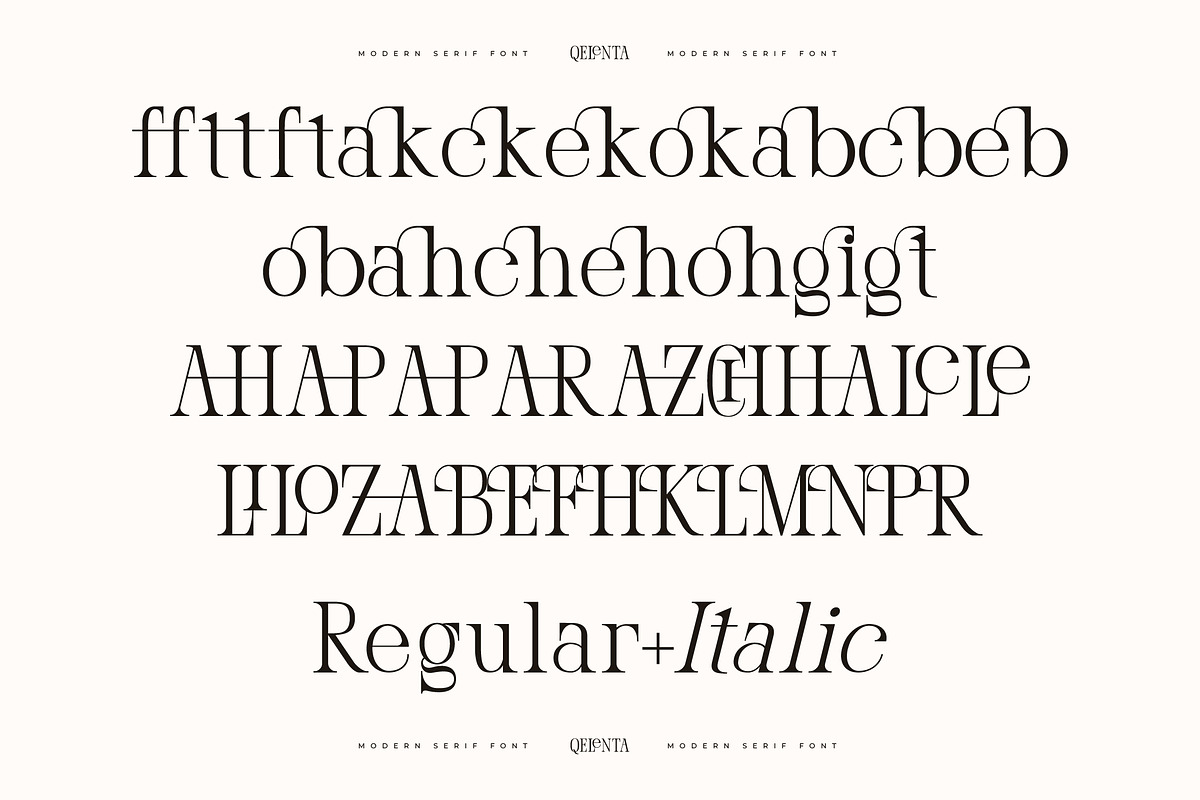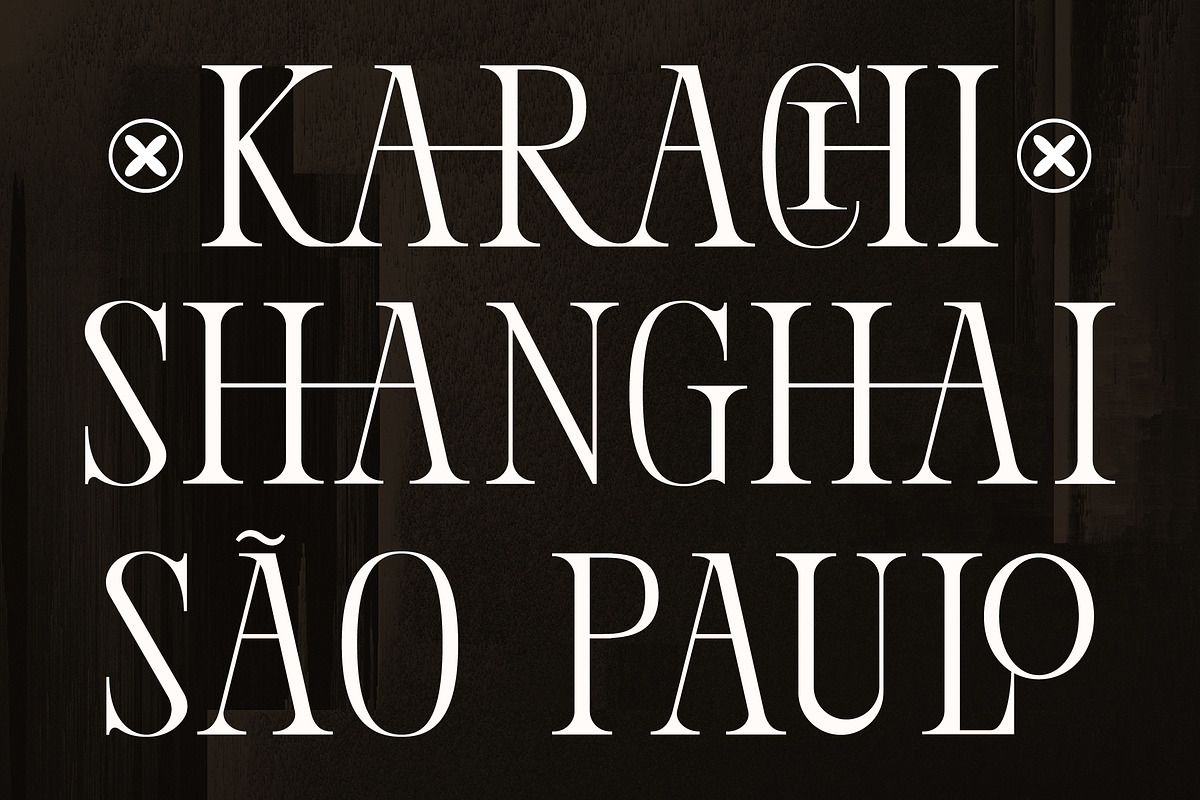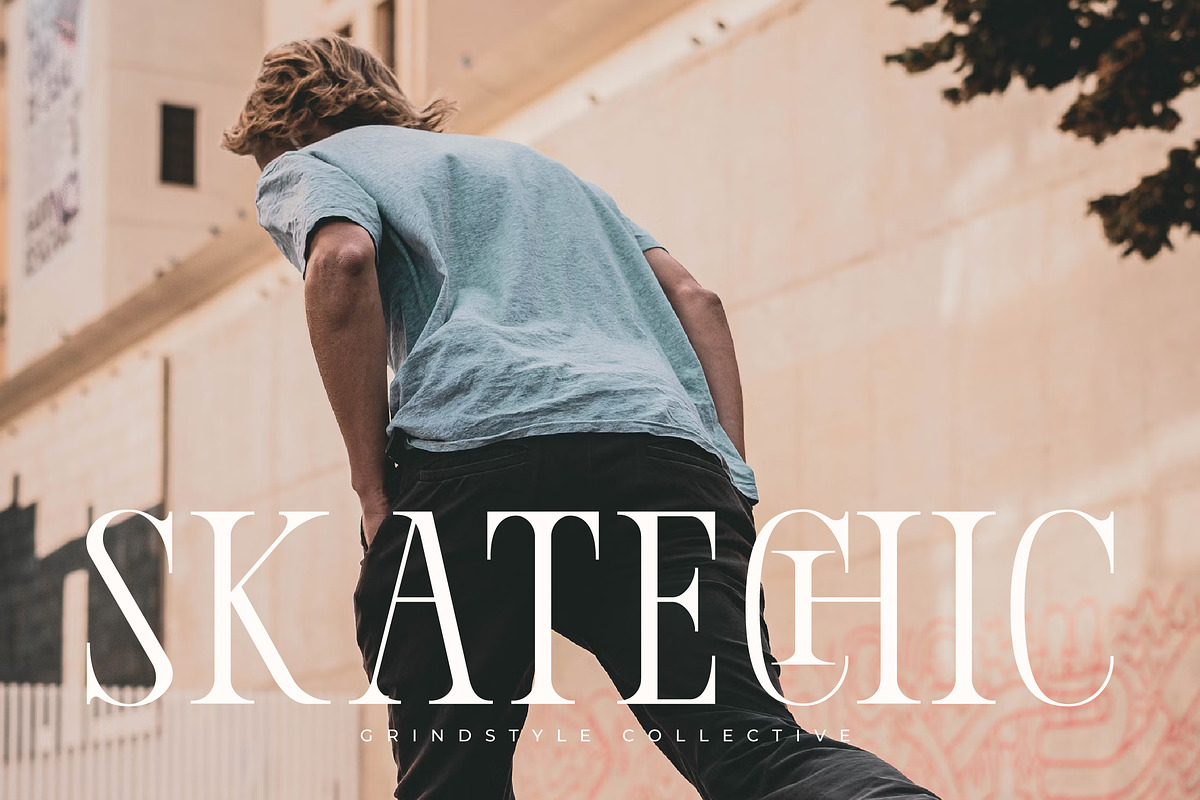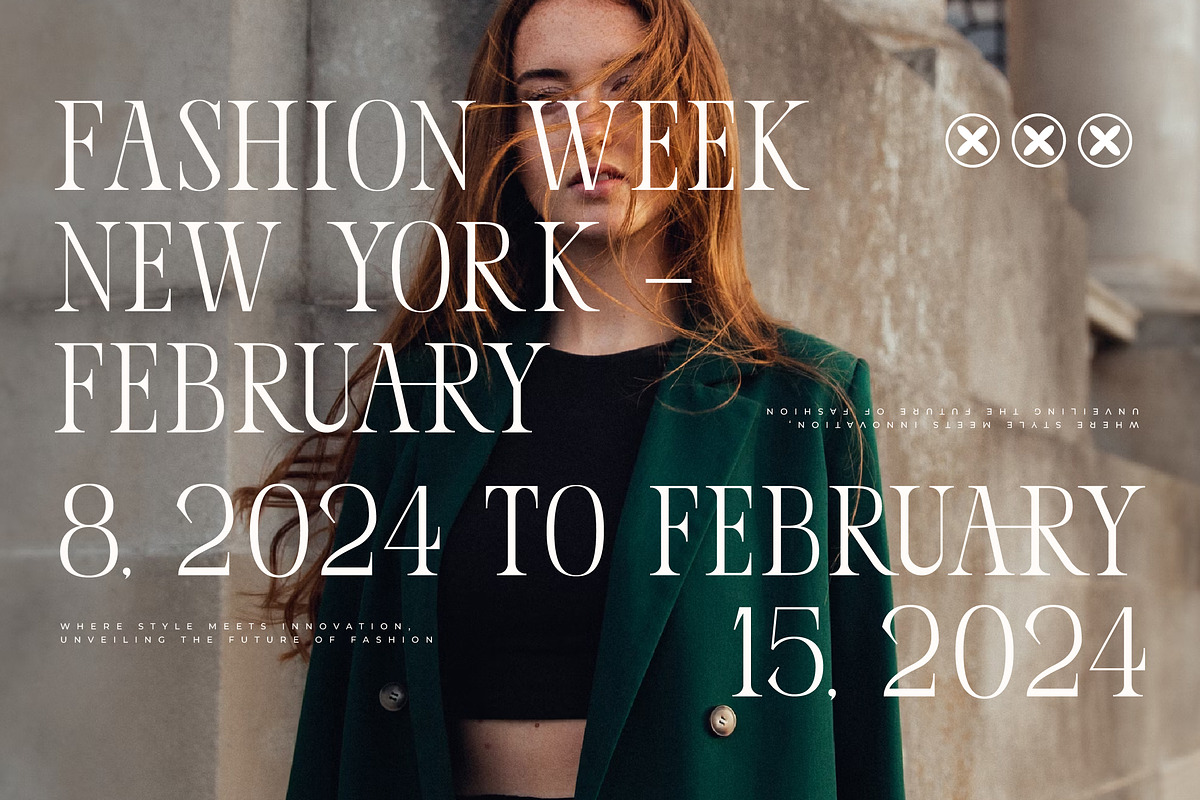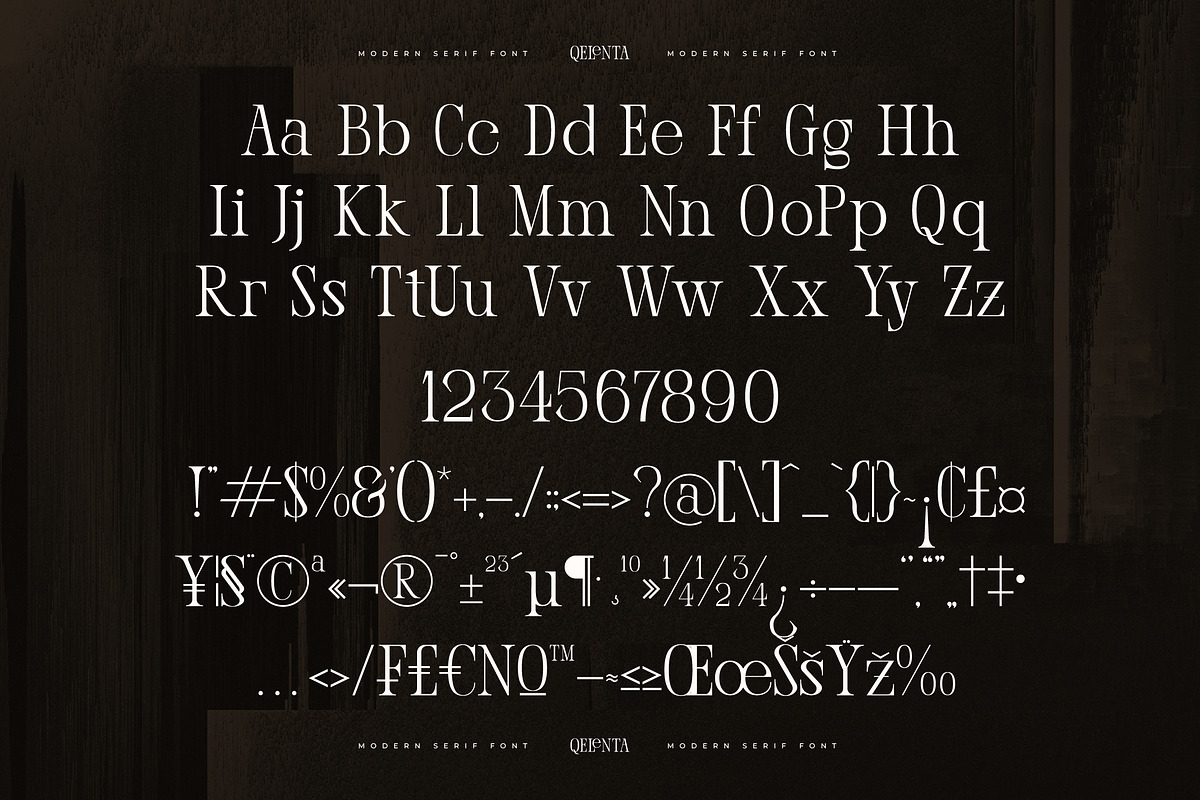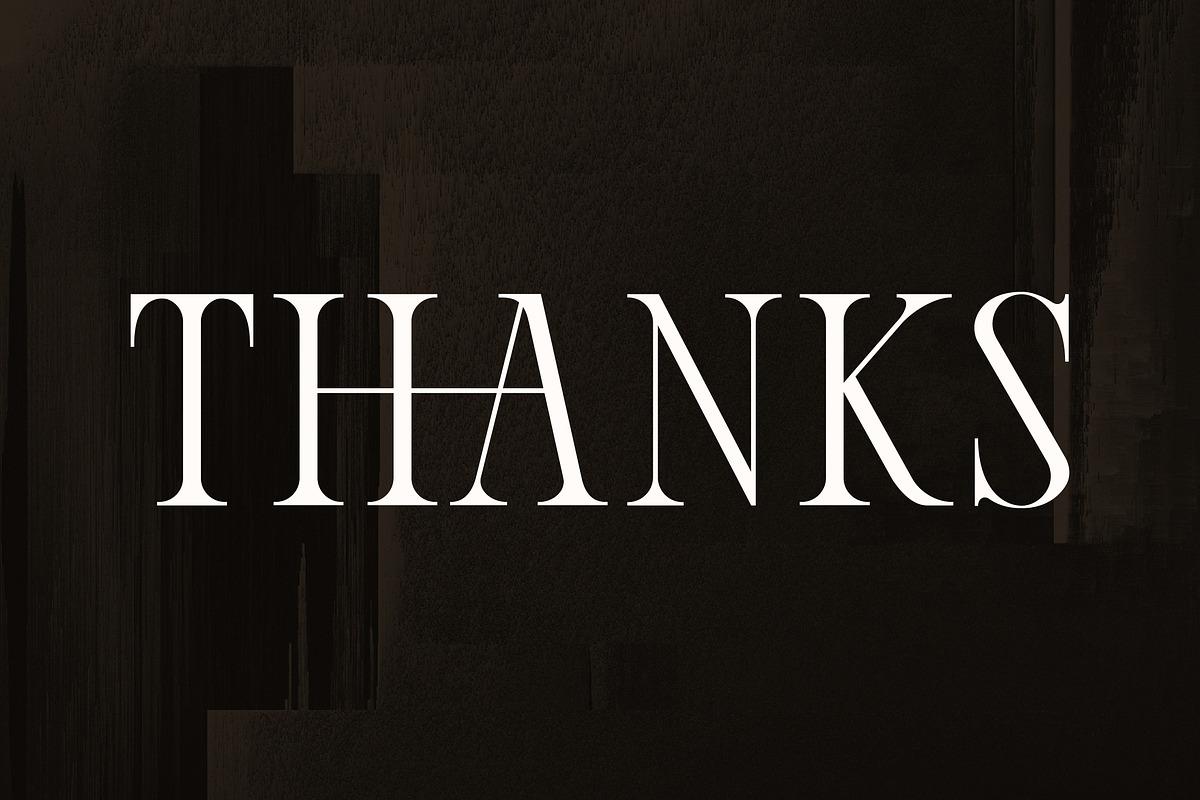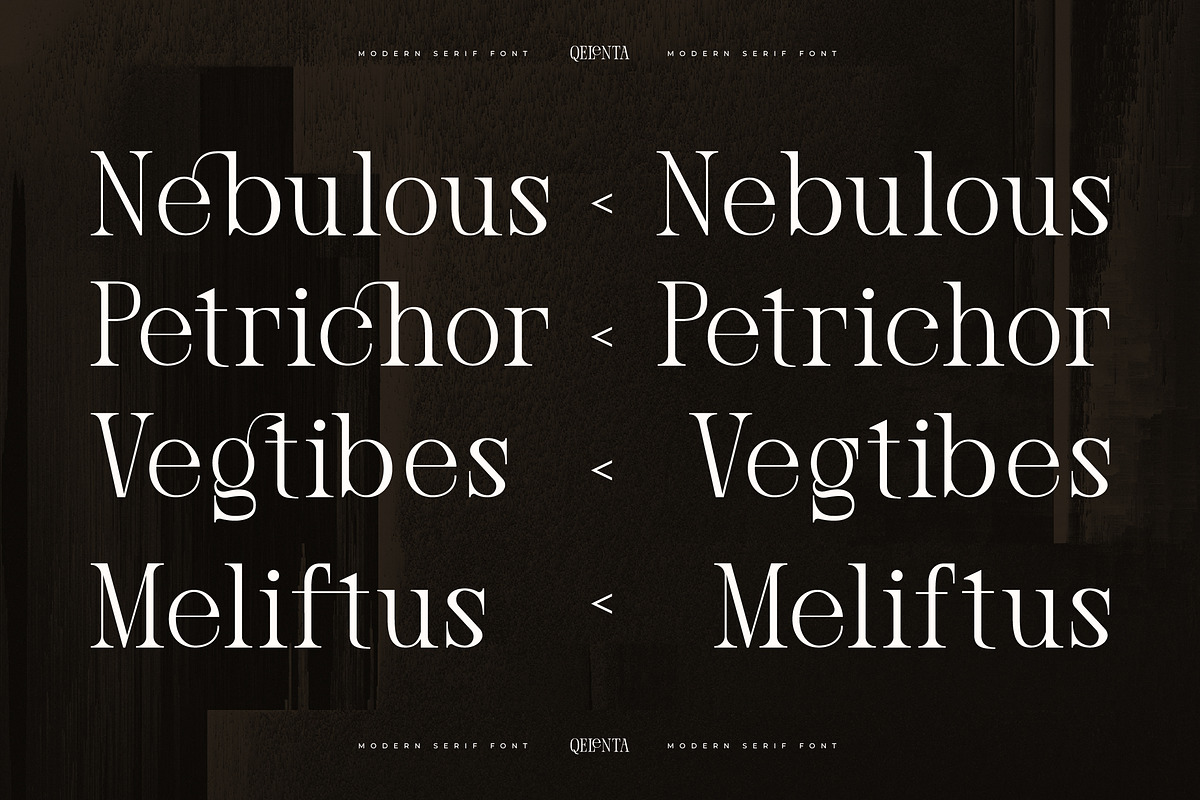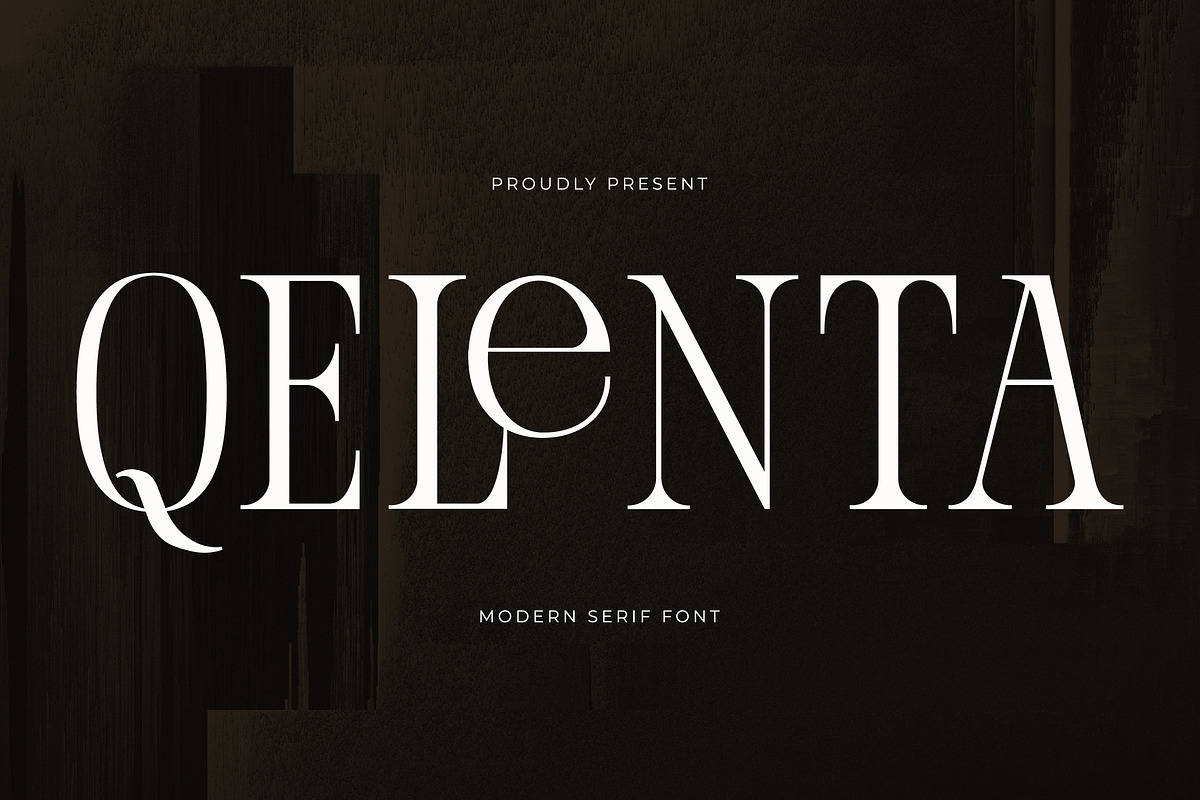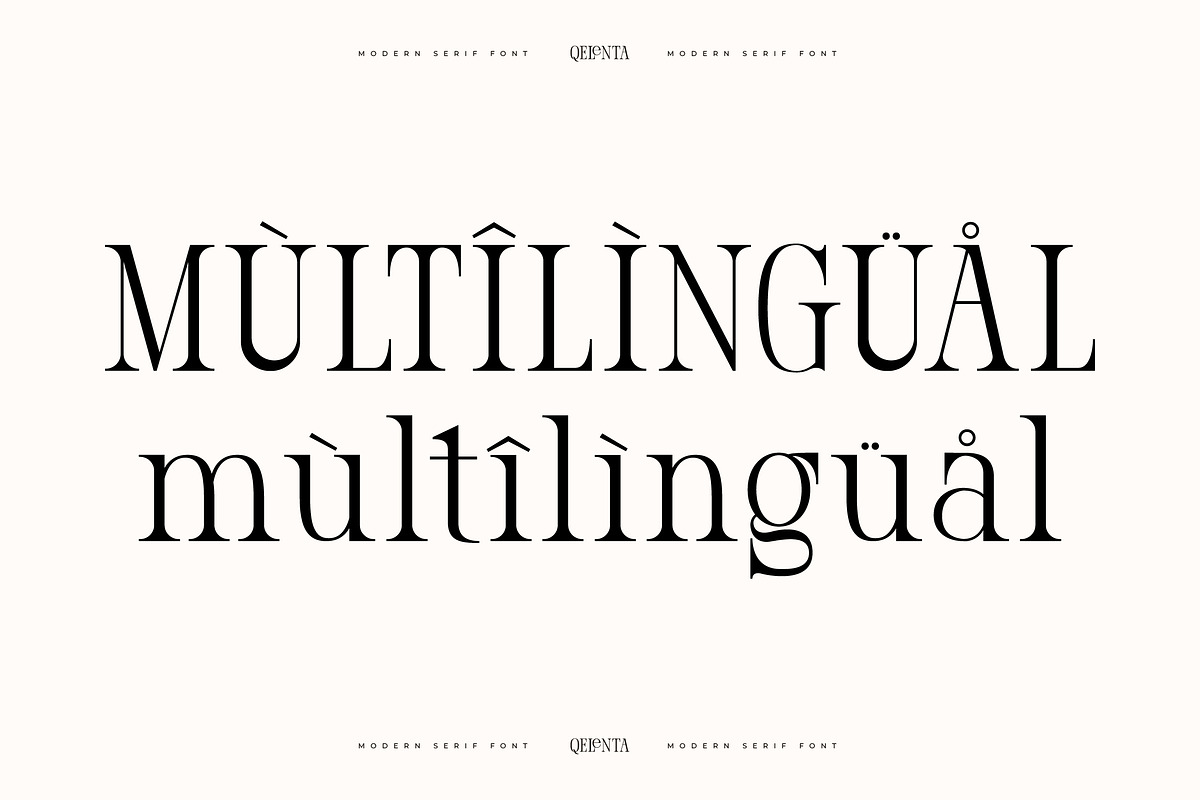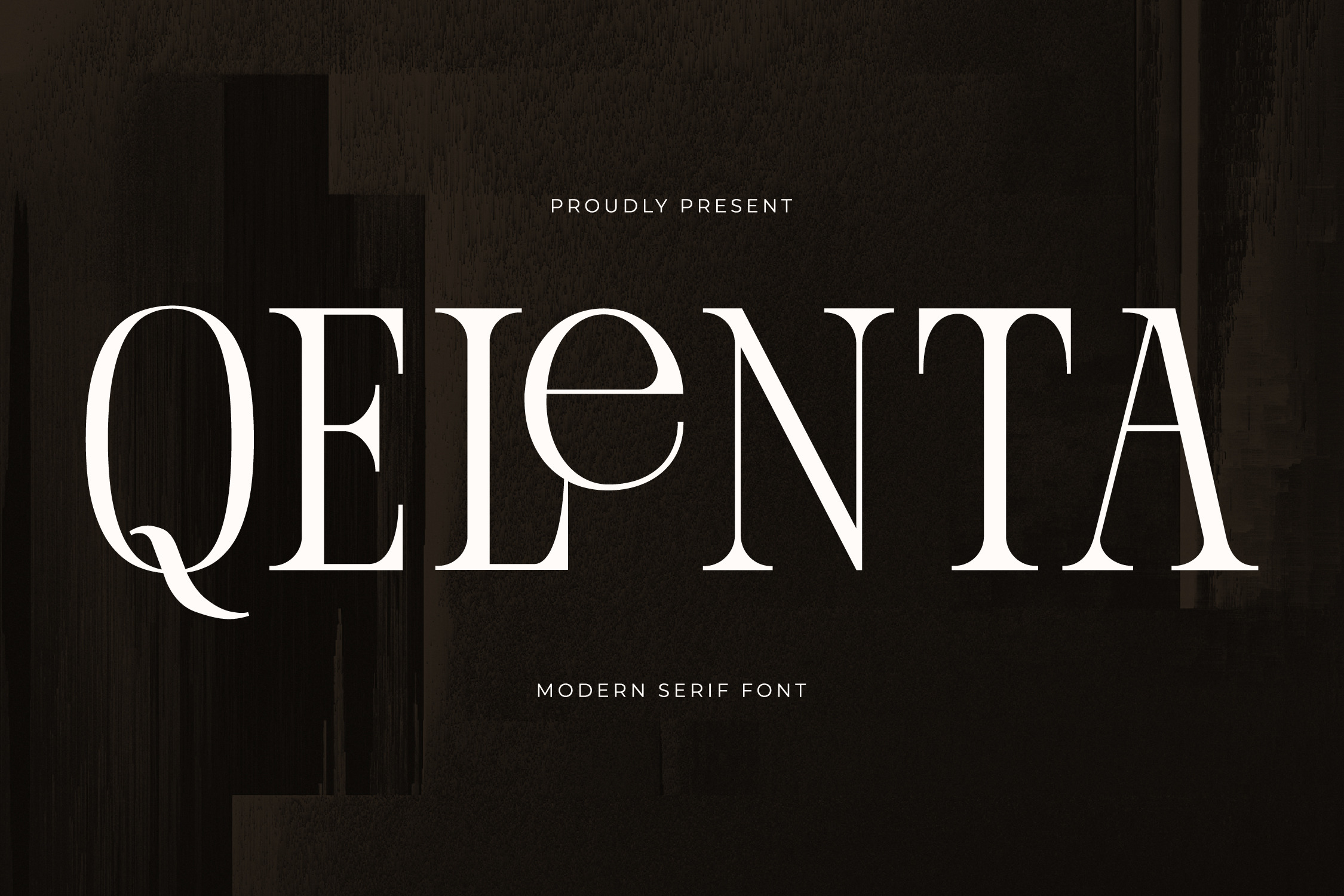
Qelenta - Modern Serif Font
Qelenta: A Modern Serif Font
Qelenta exudes contemporary elegance and sophistication. This modern serif font is crafted with precision, offering the perfect balance between sleek lines and smooth curves. Each character is carefully designed to reflect a blend of classic and modern aesthetics, making it an ideal choice for high-end branding and editorial projects.
Whether used in headlines, logos, or invitations, Qelenta delivers a sense of elegance and luxury. Let this font enhance your design work, infusing it with timeless elegance and modern flair.
- Ligatures, Alternates & Swashes